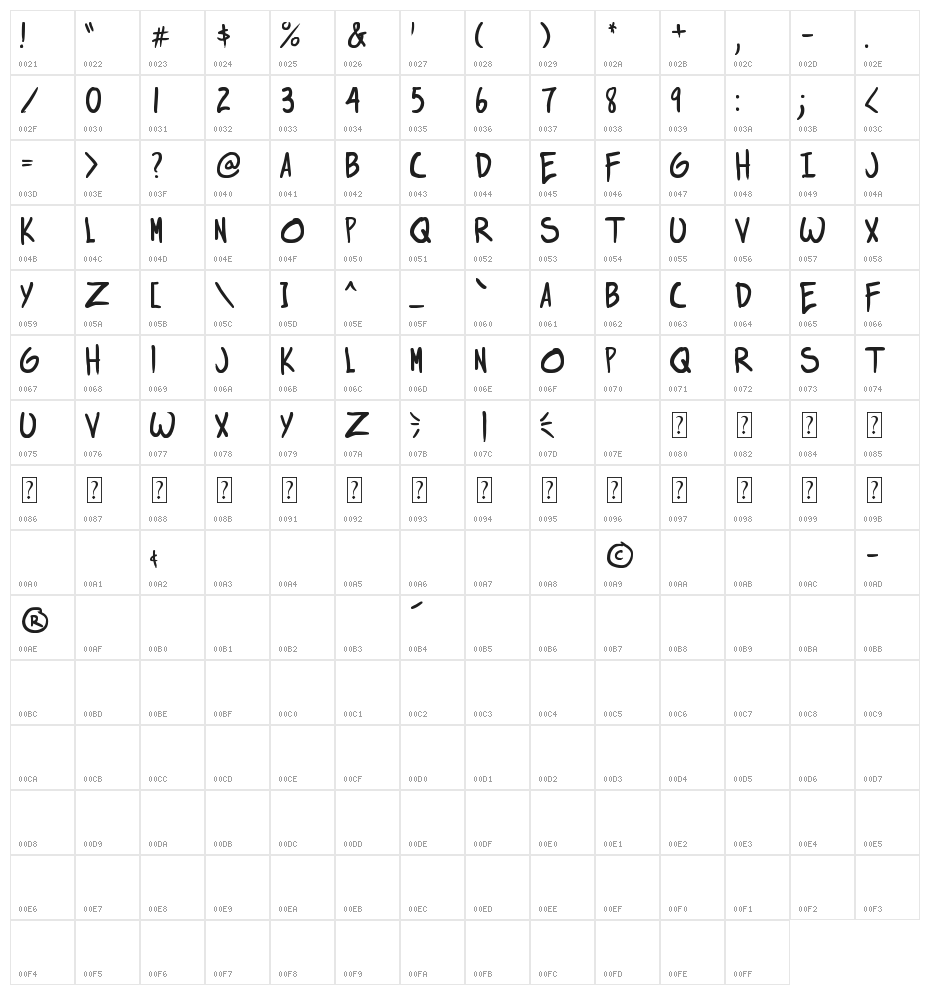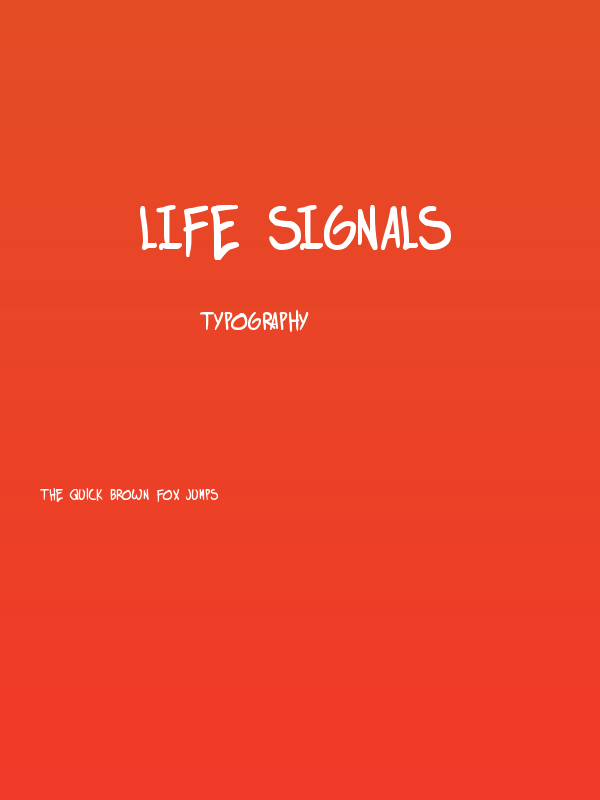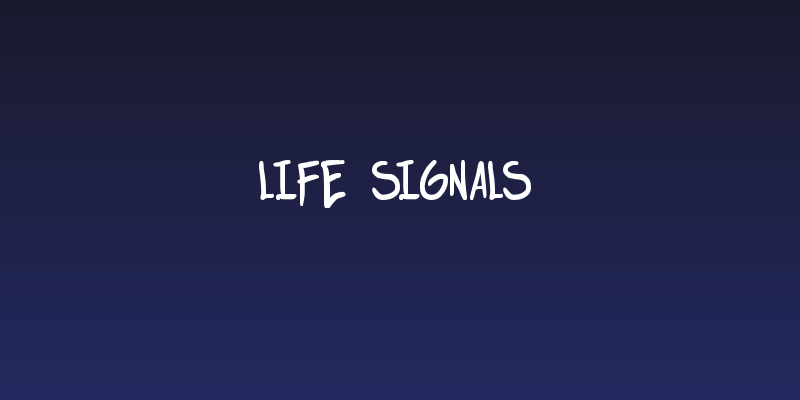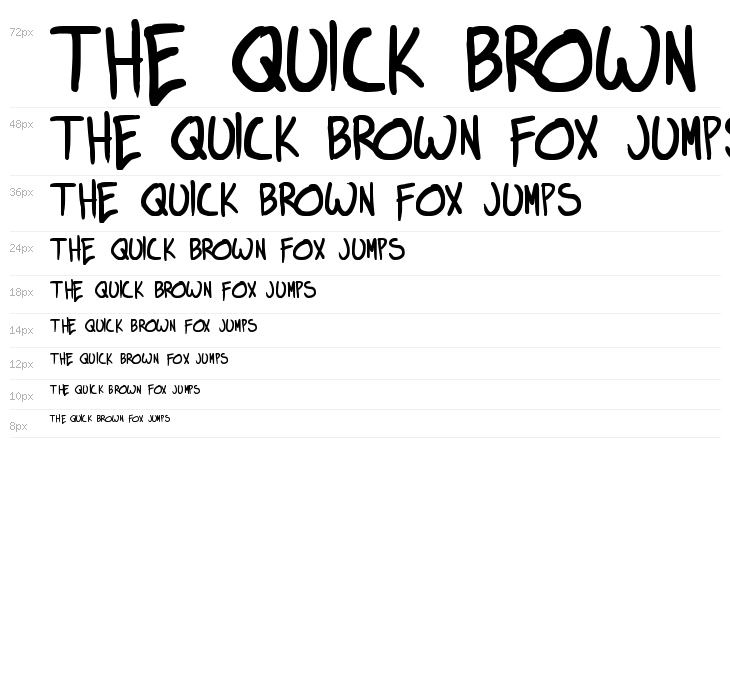
life signals Font
life signals Description
This font exhibits a playful and energetic handwritten style, characterized by its bold and slightly irregular strokes. The letters are crafted with a casual flair, giving them a lively and approachable appearance. The uppercase and lowercase letters maintain a consistent style, with rounded edges and a slight slant that adds to the informal feel. The numerals and special characters follow the same design principles, ensuring a cohesive look across all elements. This font's unique personality makes it stand out, offering a friendly and dynamic vibe suitable for creative projects.
| Overall Style | Playful, Casual |
| Proposed Projects | Ideal for children's books, casual branding, greeting cards, and playful social media graphics. |